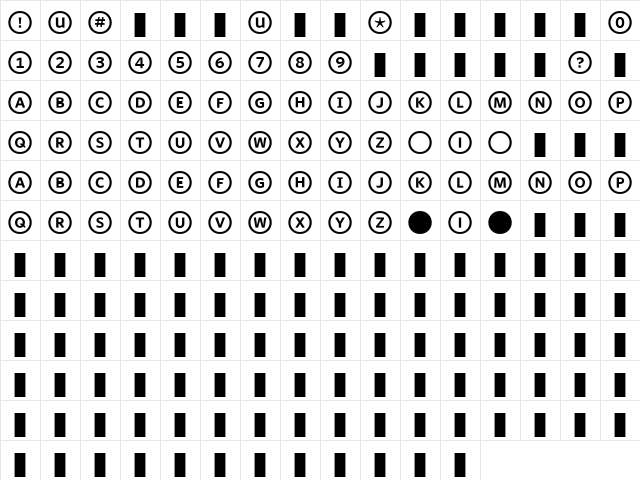
WhitneyIndexWhite Medium
WhitneyIndexWhite is a composed and adaptable typeface that performs quietly and consistently across a wide range of design contexts.